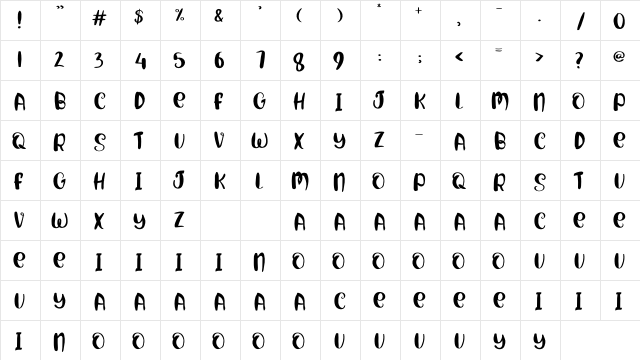
Spicy Sausage Regular
Design Context for Spicy Sausage Typeface
Spicy Sausage is a composed and adaptable typeface that performs quietly and consistently across a wide range of design contexts.